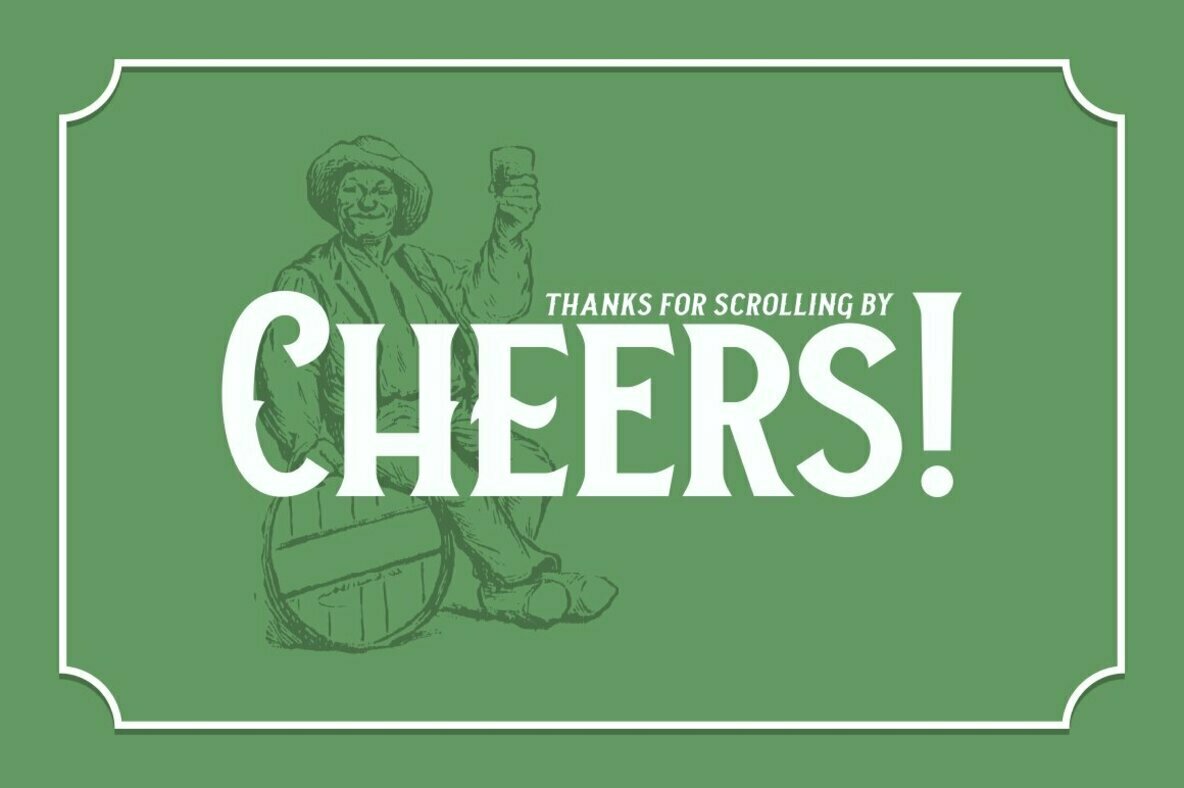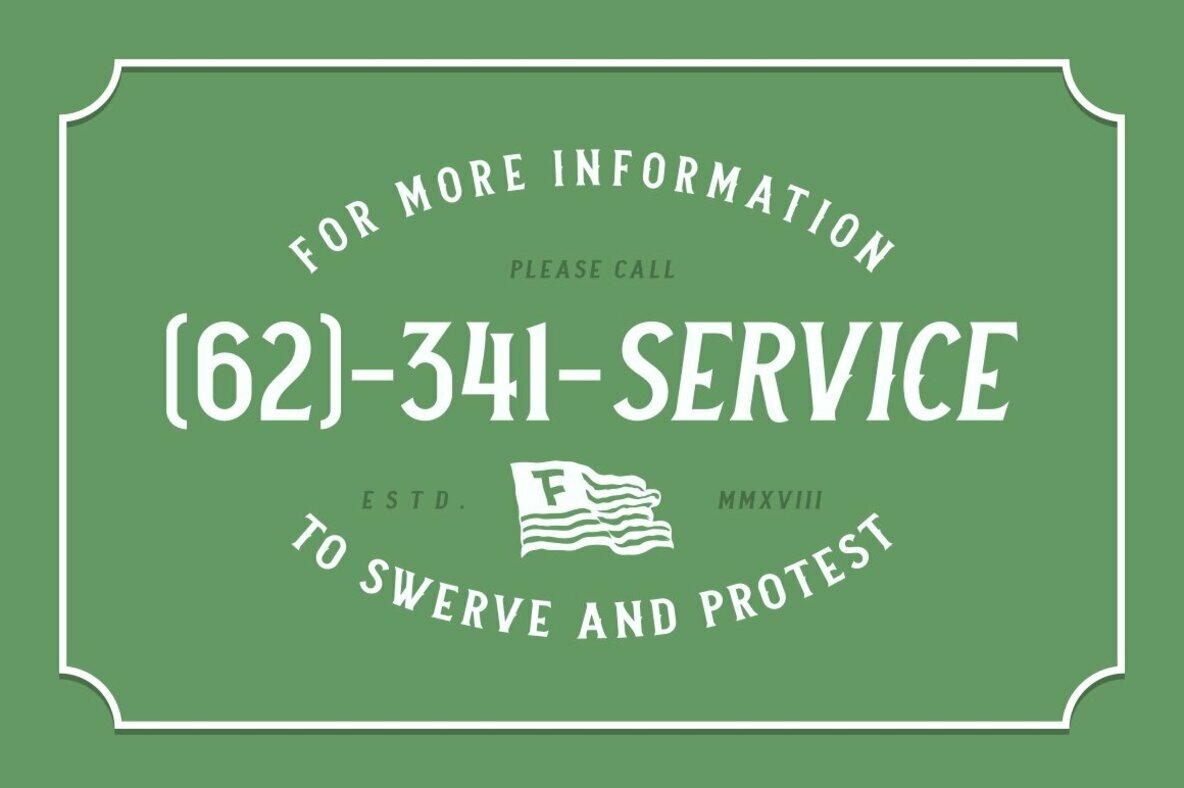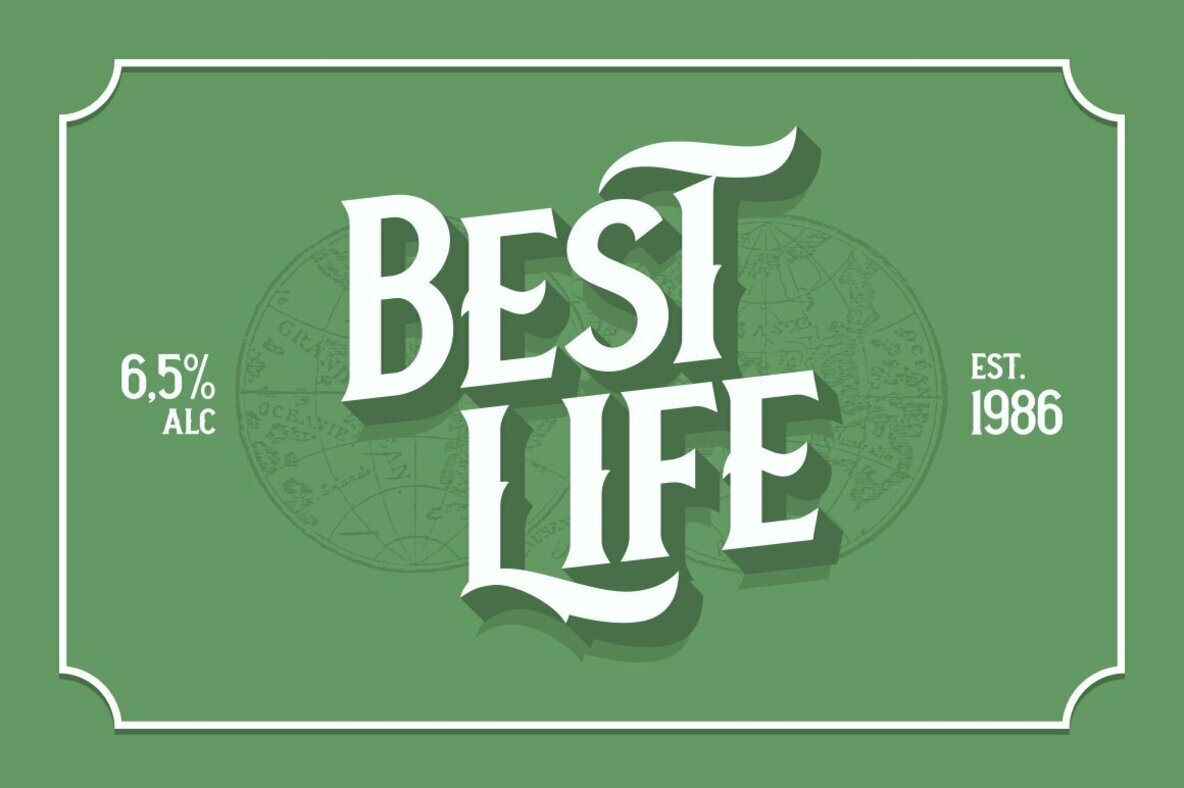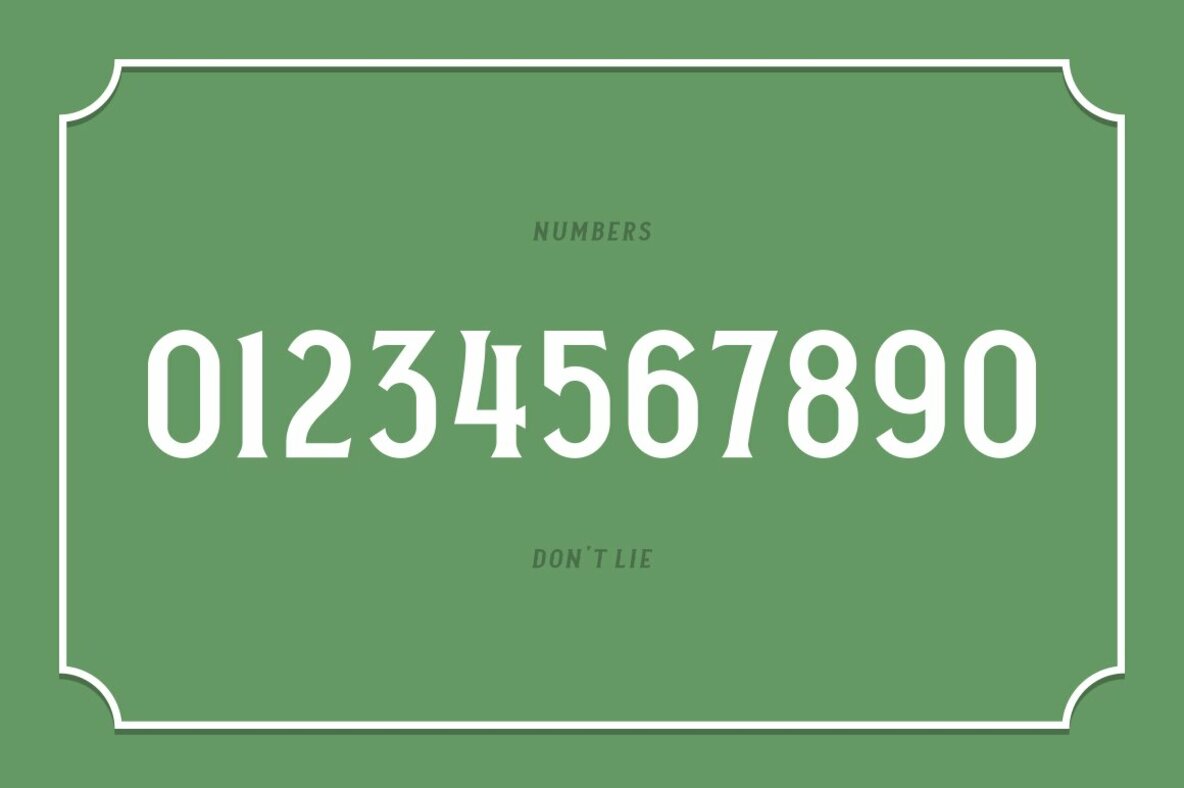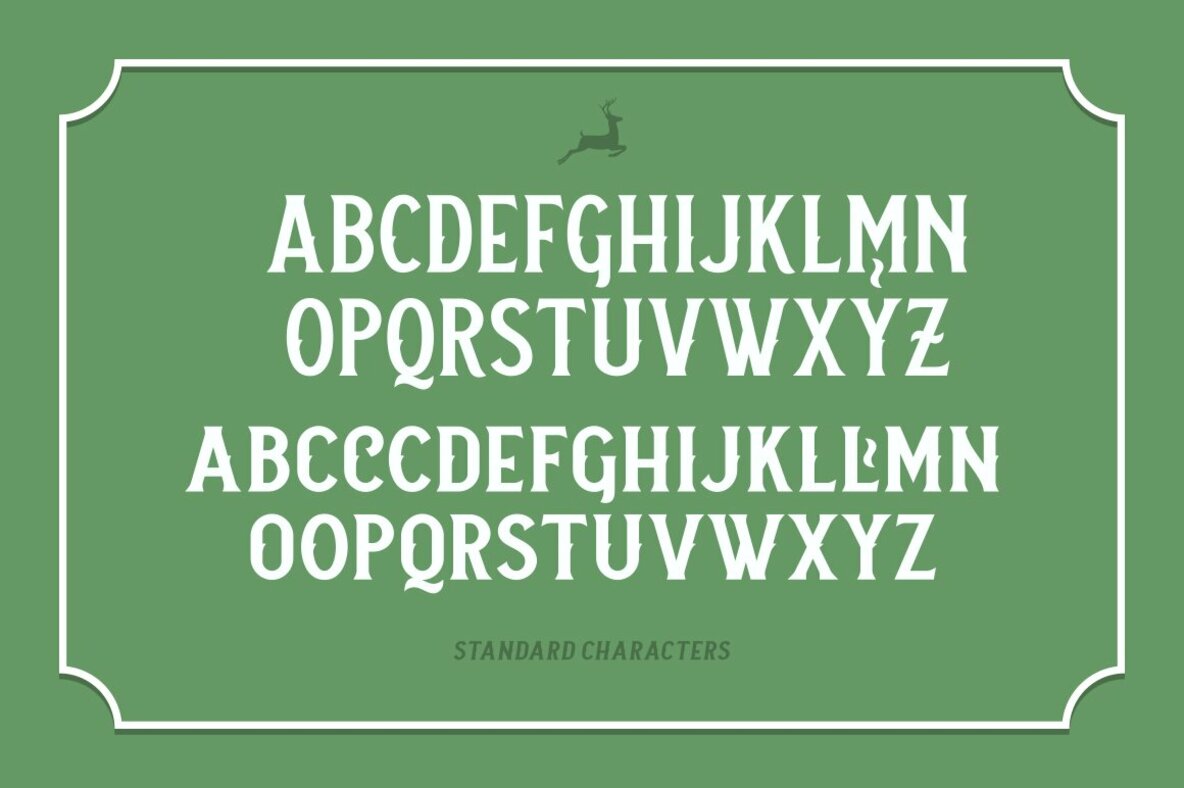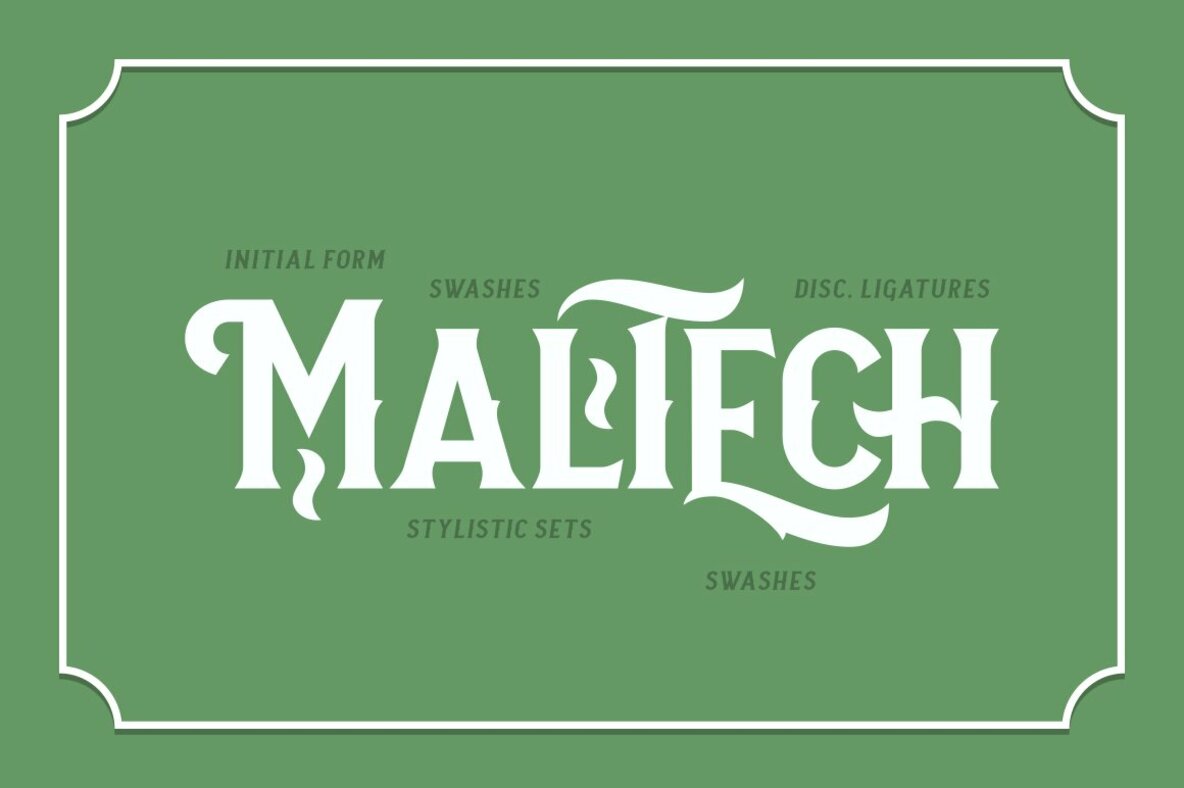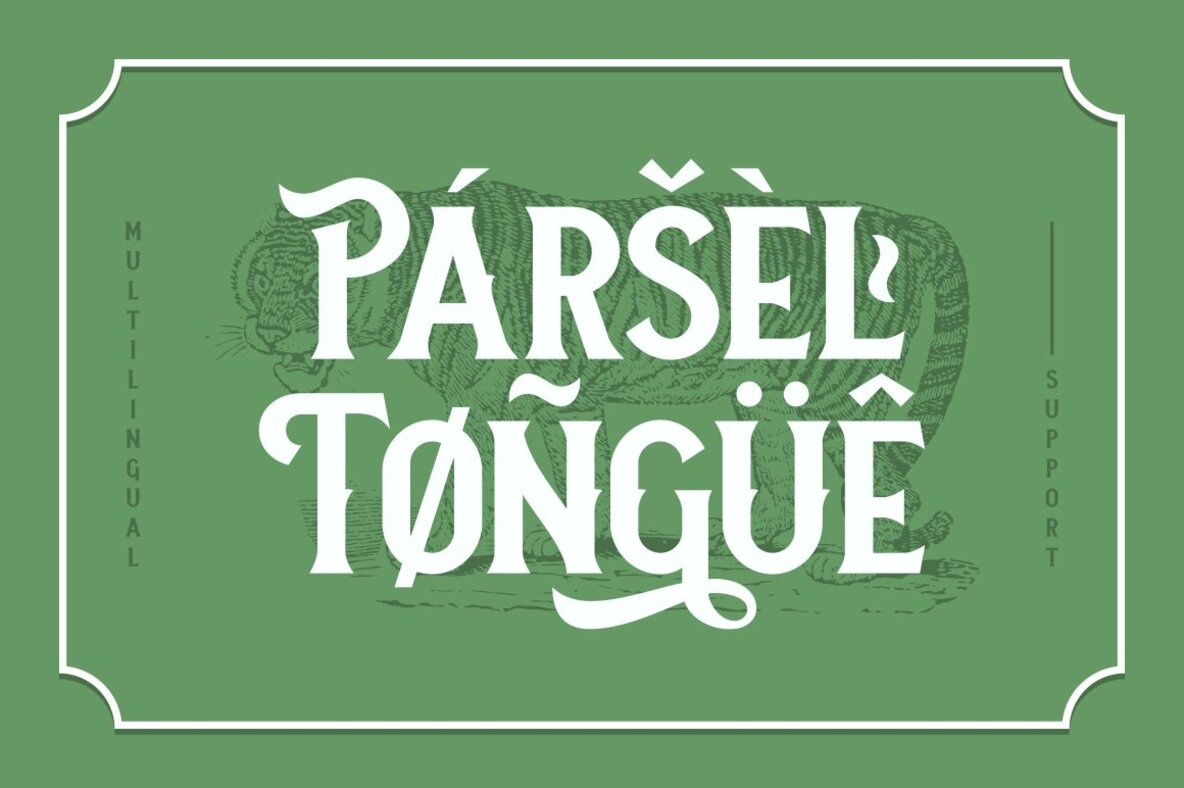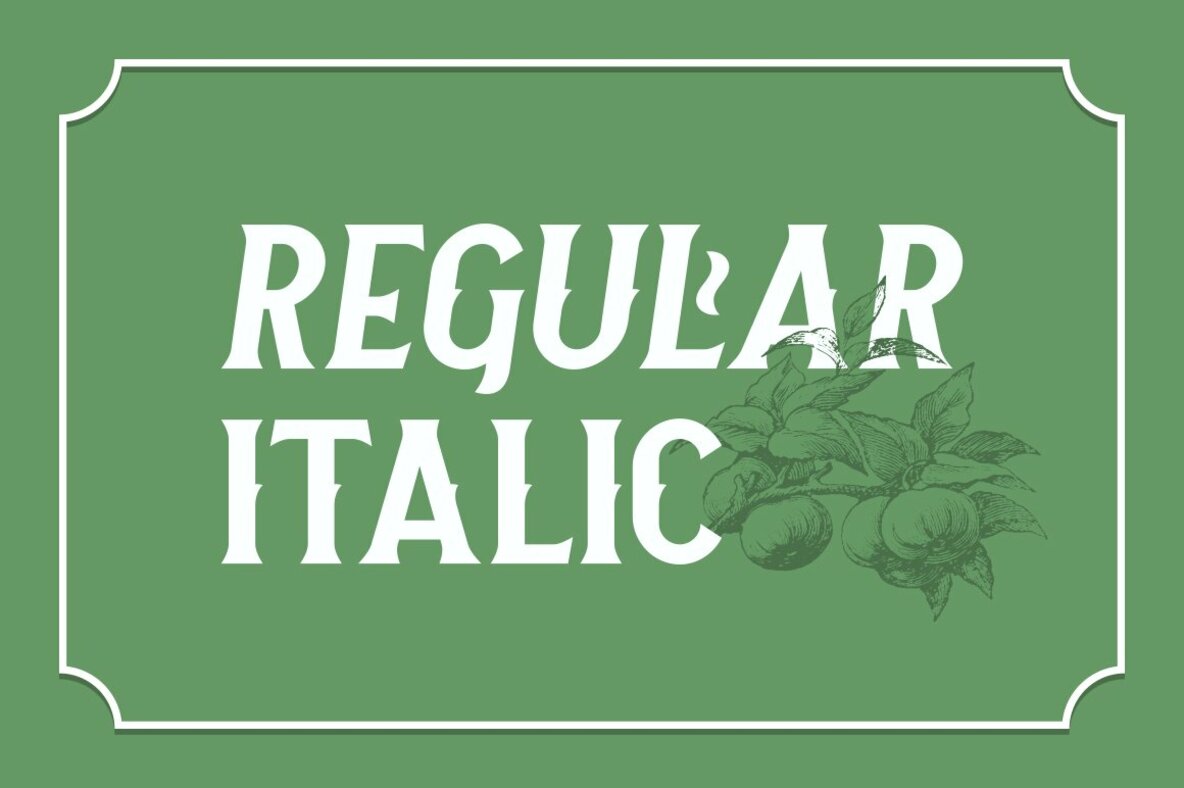
Neue Stanley Font
Explore the charm of Nouvelle Stanley, an all-caps serif font embodying vintage aesthetics with precision. Its design takes cues from classic advertisements and posters, melding strong, clean lines with a timeless character for any project. Features: Expand your creative toolkit with Neue Stanley, perfect for both classic and contemporary designs. Leverage its elegant lines and sophisticated versatility in Adobe, Corel, or any software supporting OpenType features.Neue Stanley: Vintage Serif for Modern Design